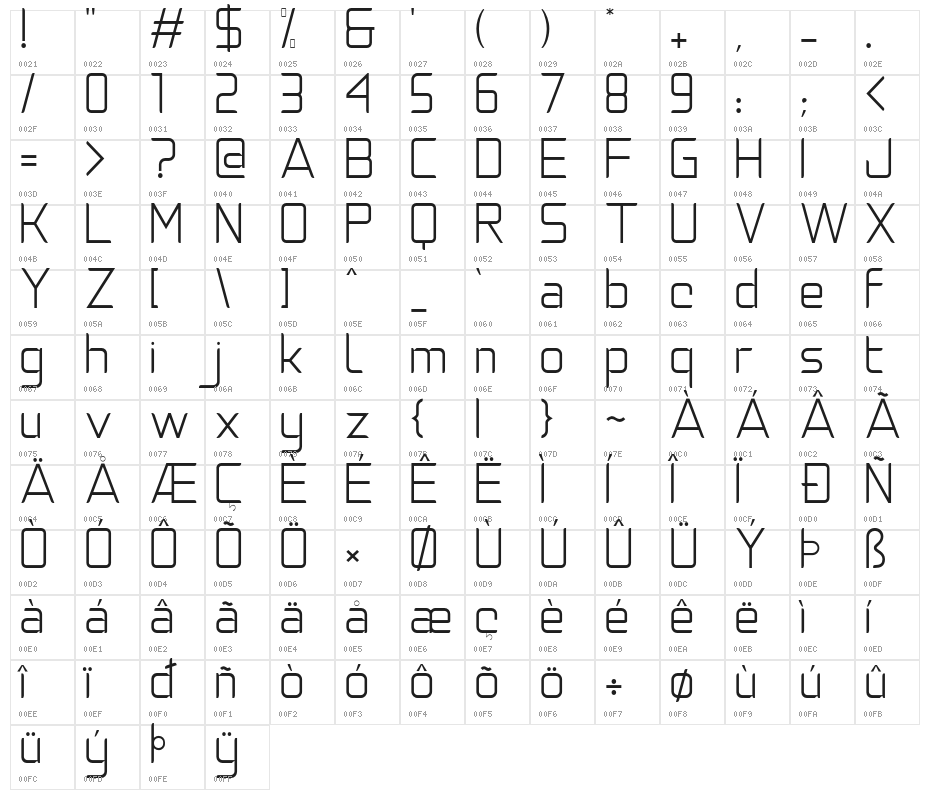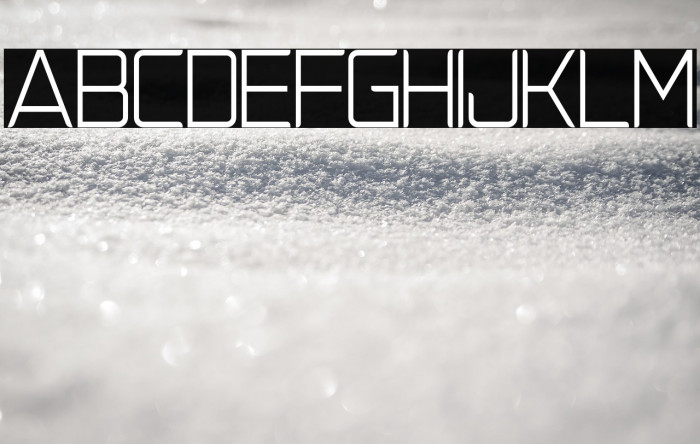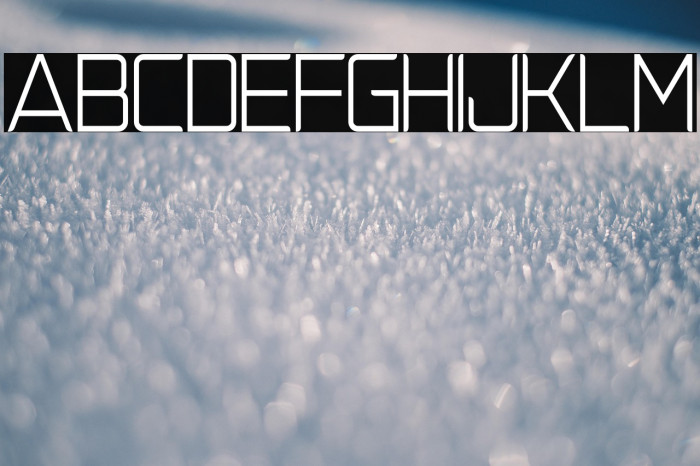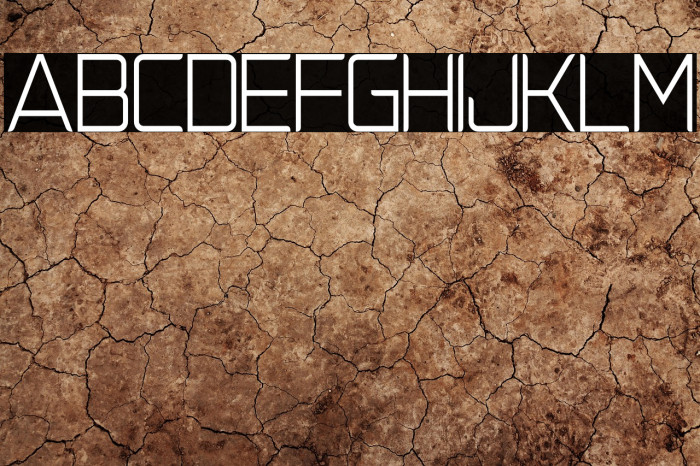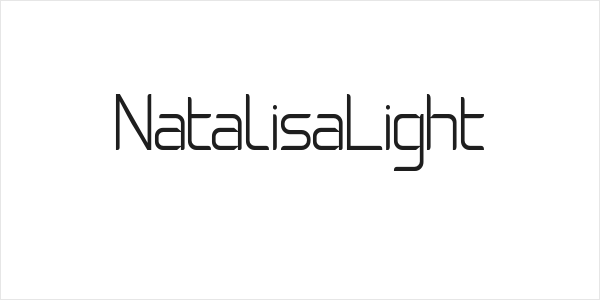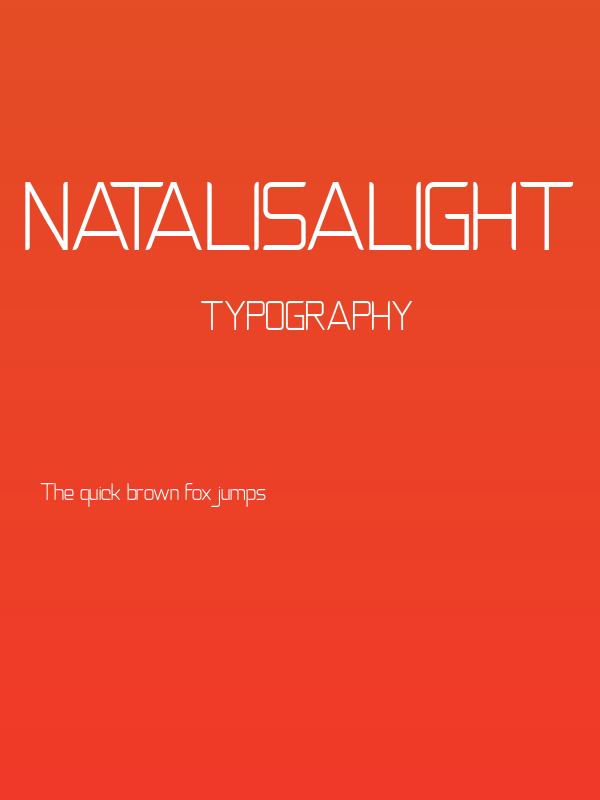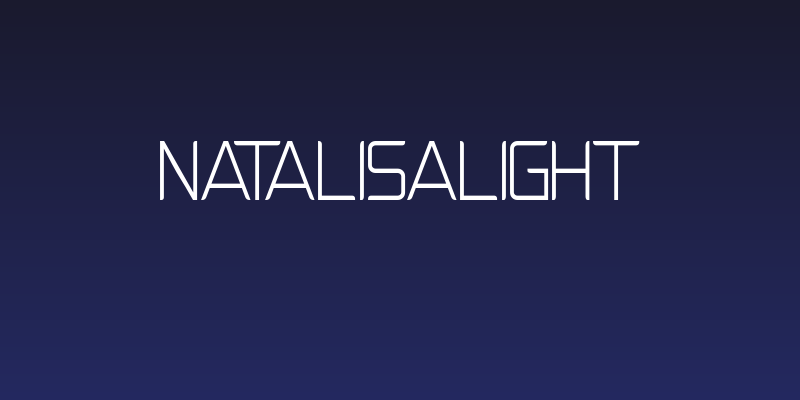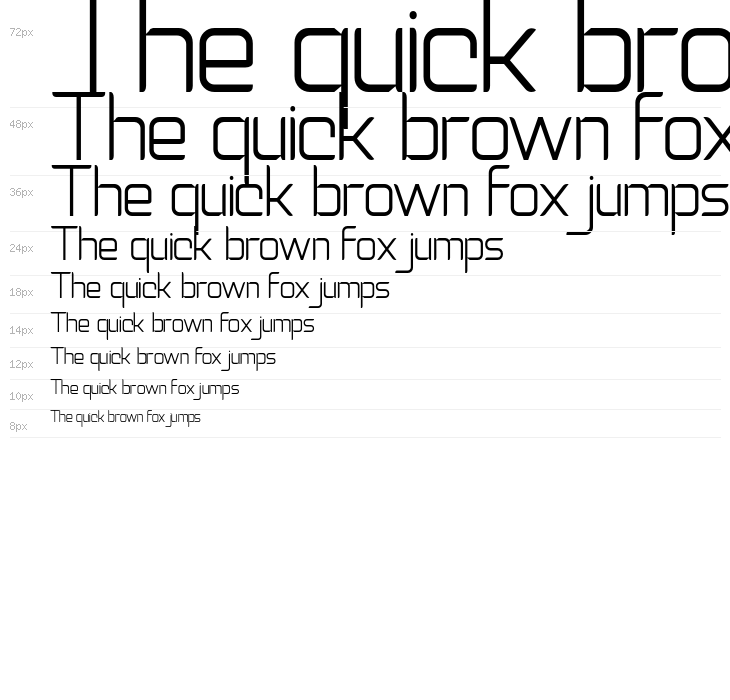
NatalisaLight Font
NatalisaLight Description
This font features a modern and sleek design with clean lines and a geometric structure. The uppercase and lowercase letters are consistent in style, with a uniform stroke width that gives it a contemporary look. The numerals are clear and easy to read, maintaining the same geometric aesthetic. Special characters are well-integrated, matching the overall design. The font's simplicity and clarity make it versatile for various applications, providing a professional and polished appearance.
| Proposed Projects | Ideal for branding, digital interfaces, signage, and editorial design. |